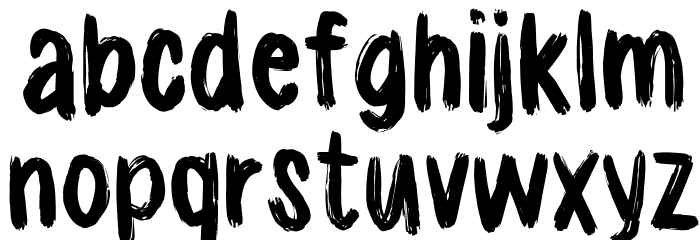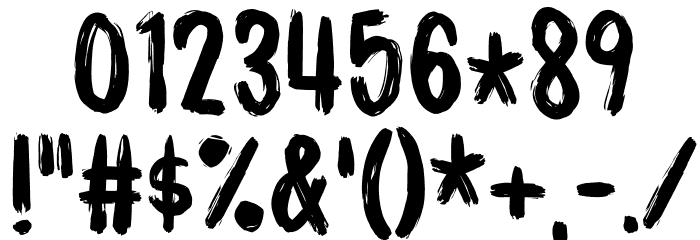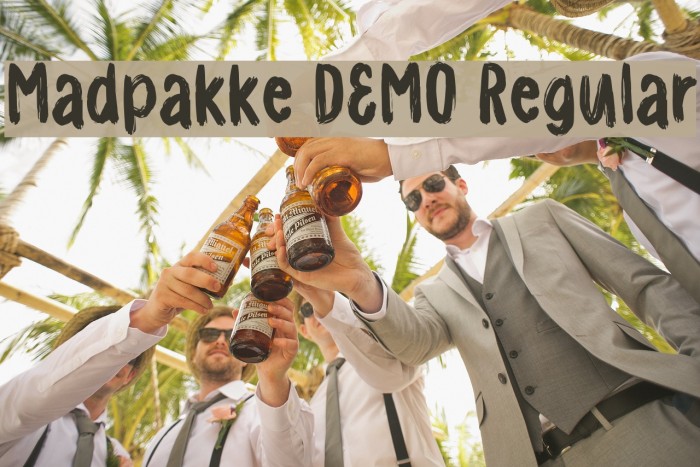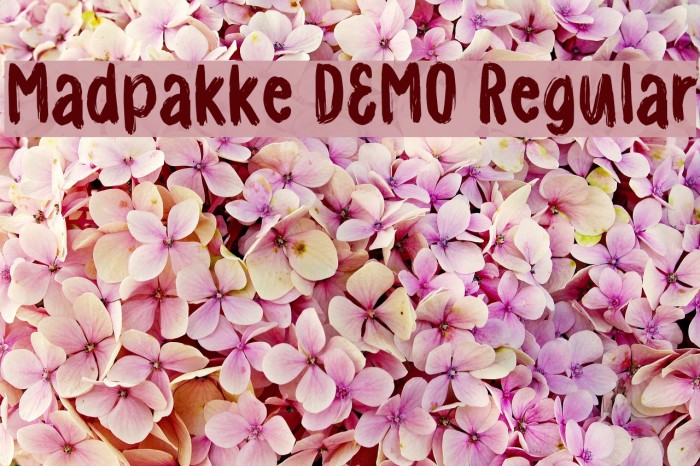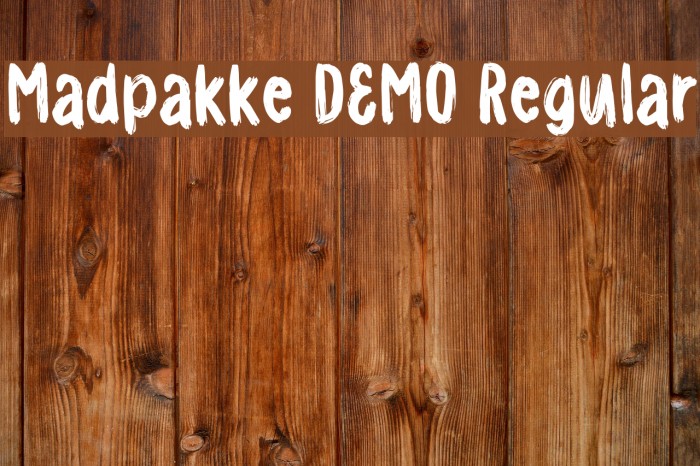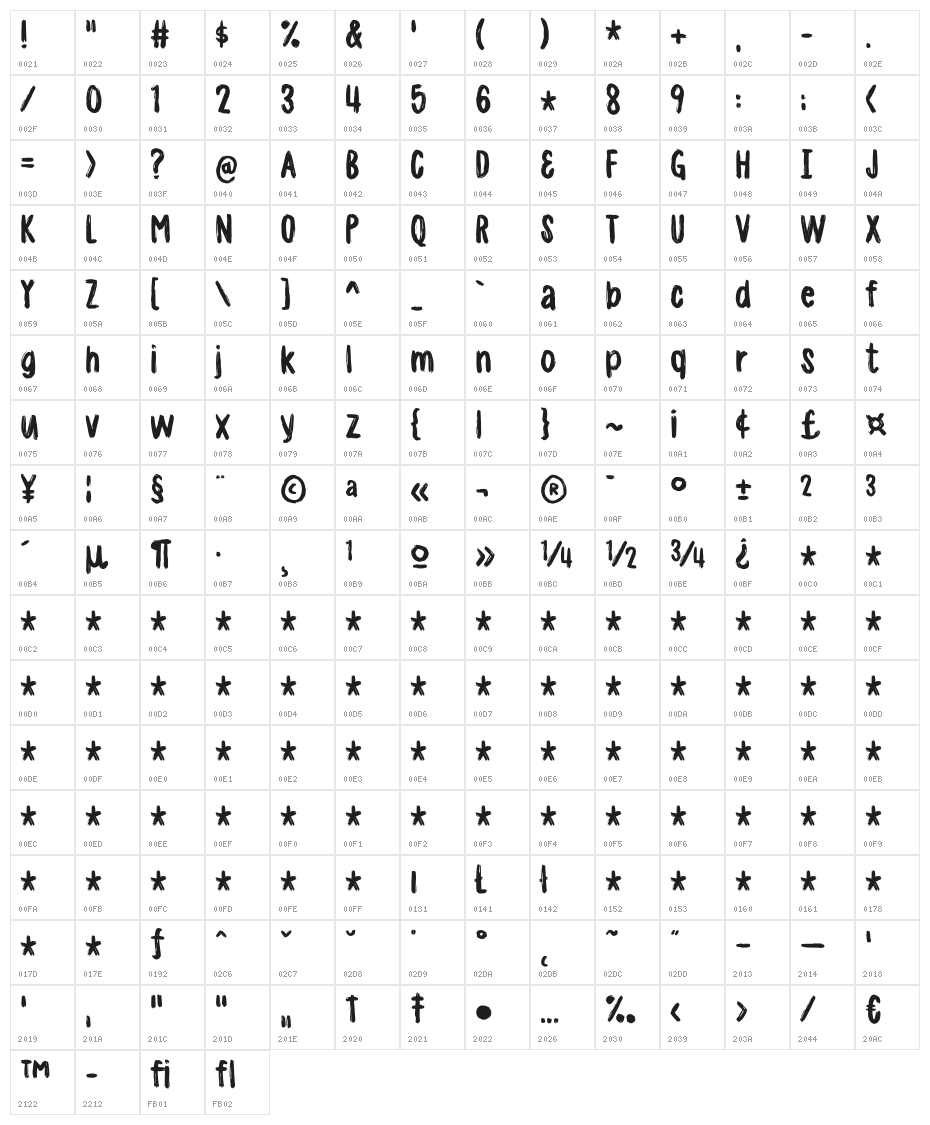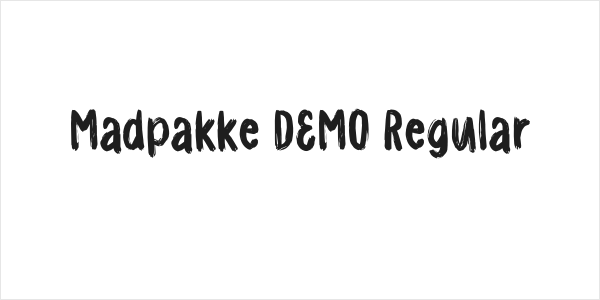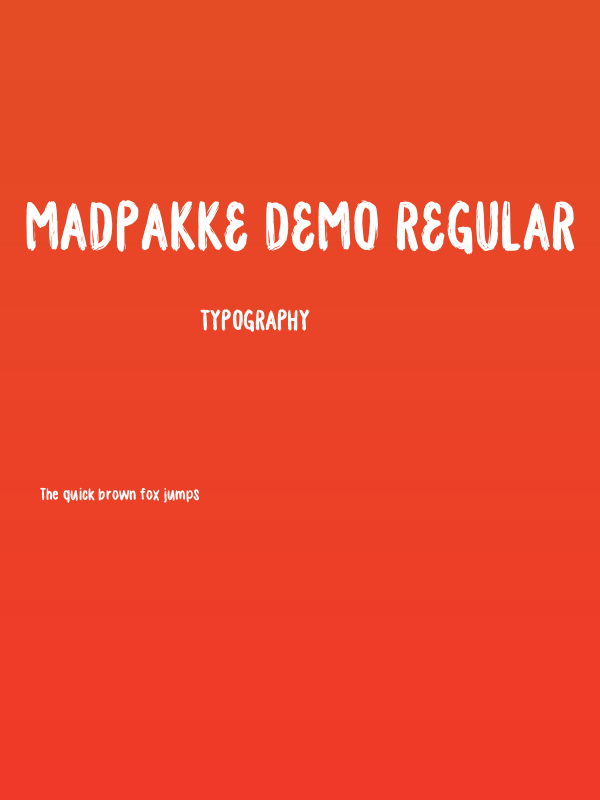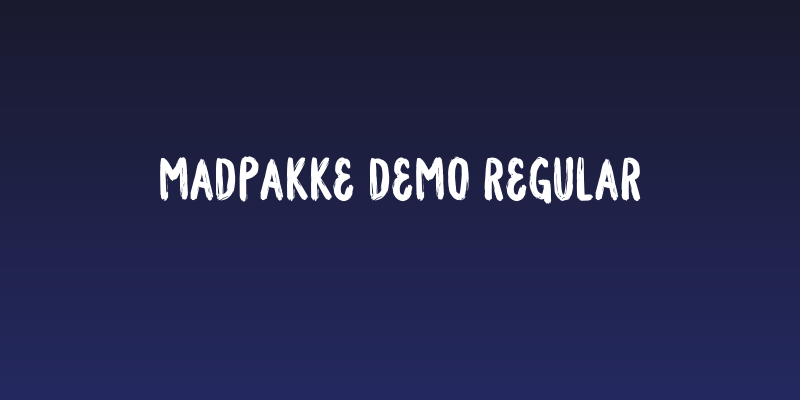
Madpakke DEMO Regular Font
This font features a bold, brush-stroke style that exudes a sense of energy and dynamism. The letters are crafted with a hand-painted appearance, giving them a raw and artistic feel. Each character is unique, with varying stroke thicknesses that create a lively and textured look. The uppercase and lowercase letters maintain a consistent style, while the numbers and special characters complement the overall aesthetic. This font is perfect for projects that require a bold and expressive touch, such as posters, branding, and creative designs.
A bold, brush-stroke style font with a hand-painted, artistic feel.
- Proposed Projects: Ideal for posters, branding, creative designs, and any project needing an expressive touch.